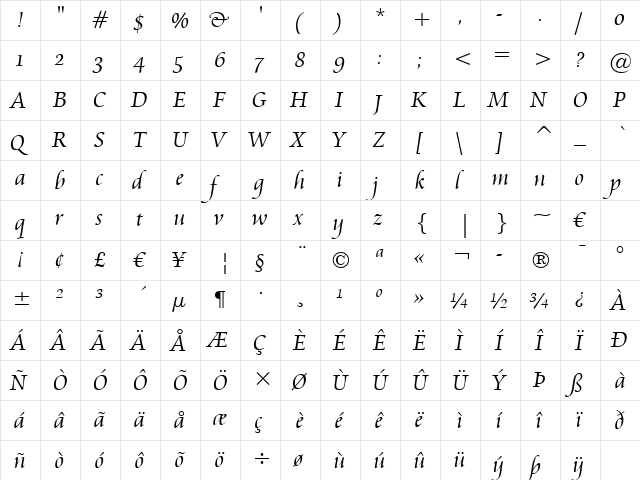
Cataneo Lt OSF BT Light
Design Context for Cataneo Lt OSF BT Typeface
Cataneo Lt OSF BT is a composed and adaptable typeface that performs quietly and consistently across a wide range of design contexts. Its slender proportions lend an understated elegance to any composition.